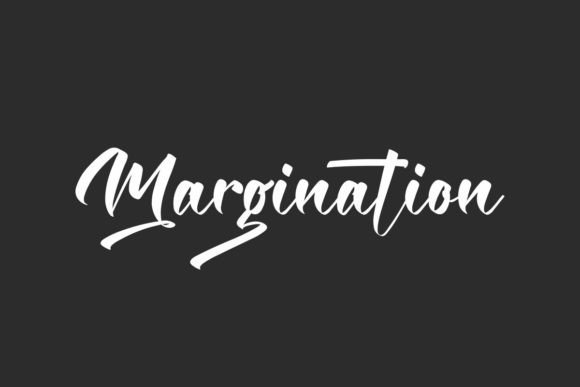
Behold, Margination Font: A Stroke of Bold Elegance!
Welcome to the realm of typography, where Margination Font reigns supreme—a bold calligraphy brush font that commands attention. Its striking lines and impeccable strokes are not just visually appealing but also remarkably easy to read, making it a font like no other.
Created by the visionary minds at Vintype, Margination Font is a masterpiece that elevates any design, adding a touch of sophistication and artistry to your creations. Its strong appearance, coupled with the distinctive lines at the end of each letter, creates a visual impact that captivates and enchants.
Step into a world of limitless possibilities, where Margination Font seamlessly blends with various industries, like a chameleon adapting to its surroundings. Whether you're a creative professional in advertising, a connoisseur of art, or a fashion enthusiast, this font is your perfect companion. Its versatility extends to boutiques, beauty products, handicrafts, jewelry, perfume, printing, publishing, and so much more!
With Margination Font, your designs will exude confidence, making a statement that resonates with your audience. Transform your words into masterpieces, capturing the essence of your brand and leaving an indelible mark on the minds of your customers.
So, don't settle for mediocrity; embrace Margination Font and unleash your creativity. Let your designs shine with a font that speaks volumes, creating an unforgettable experience for your audience.